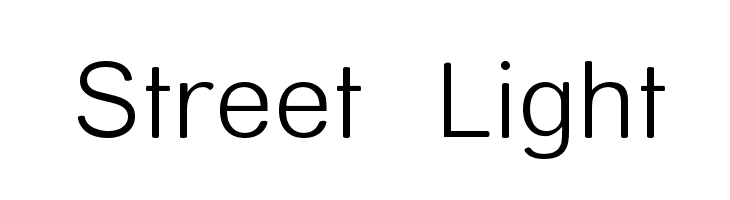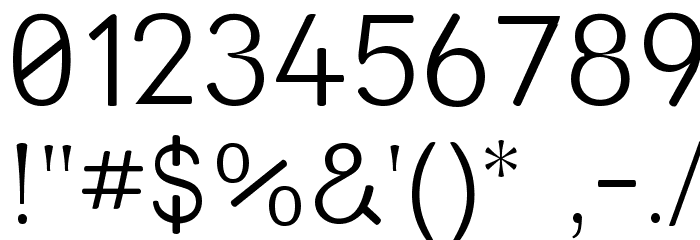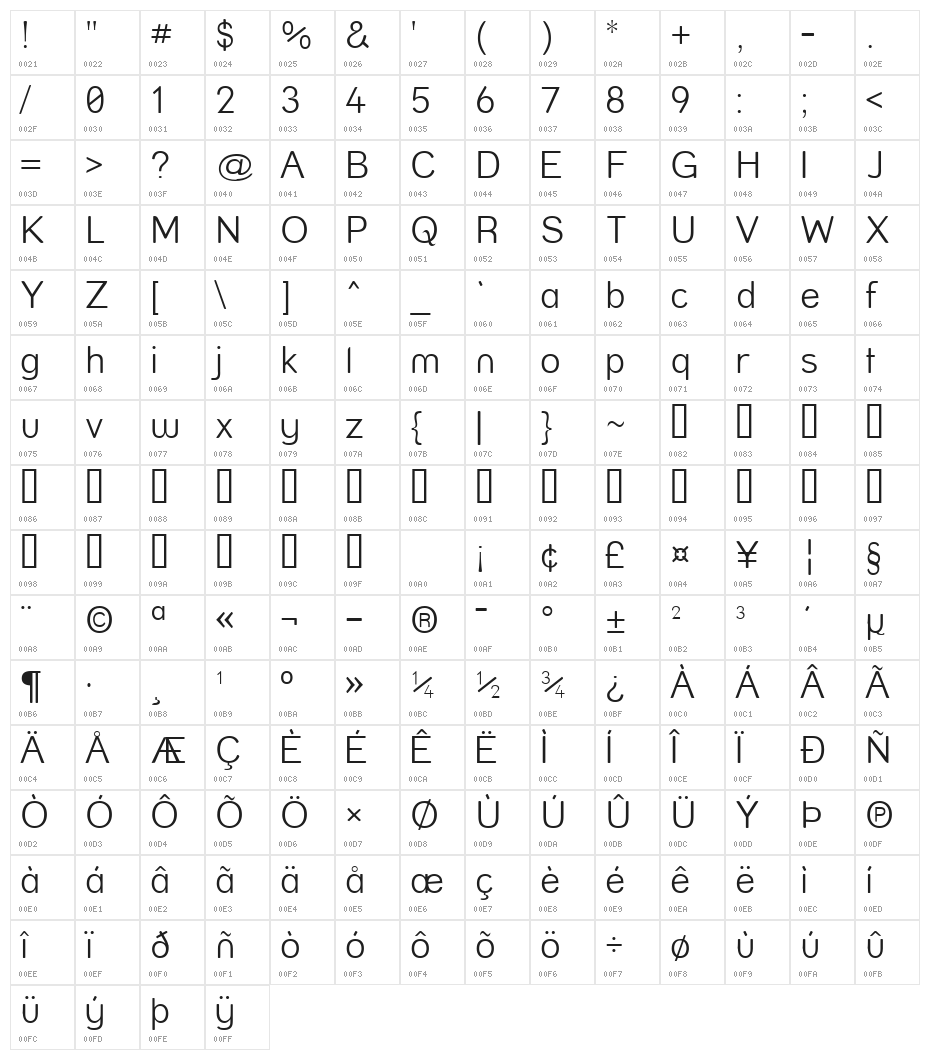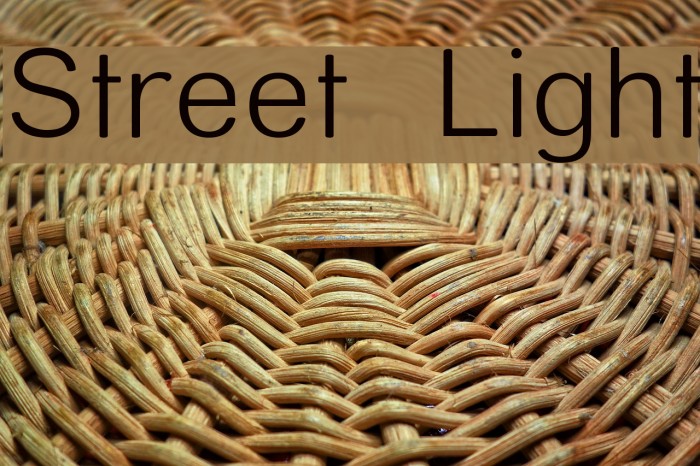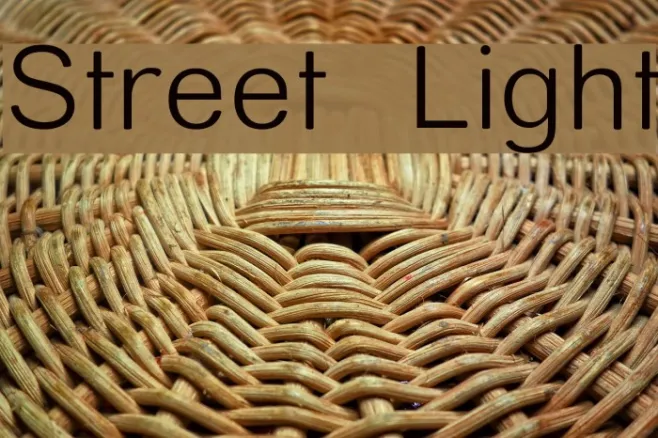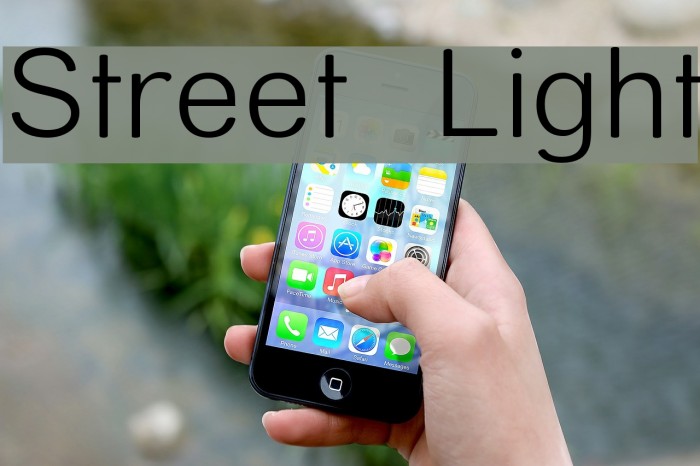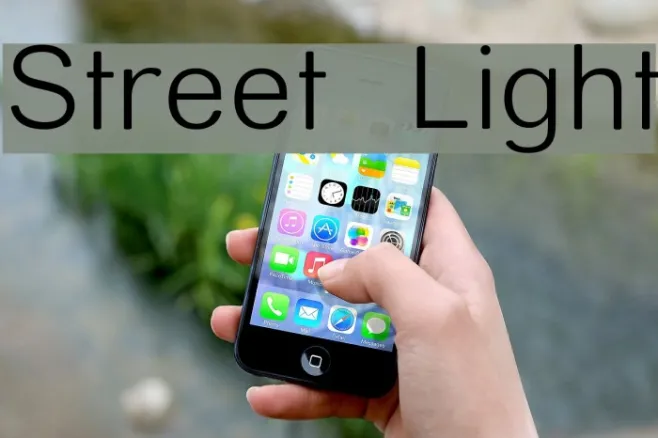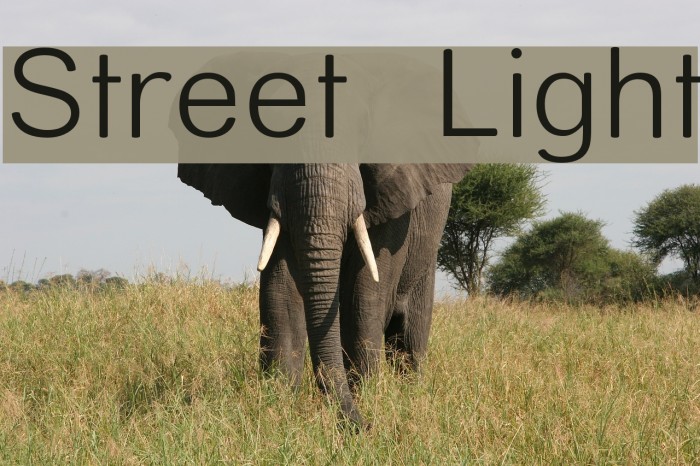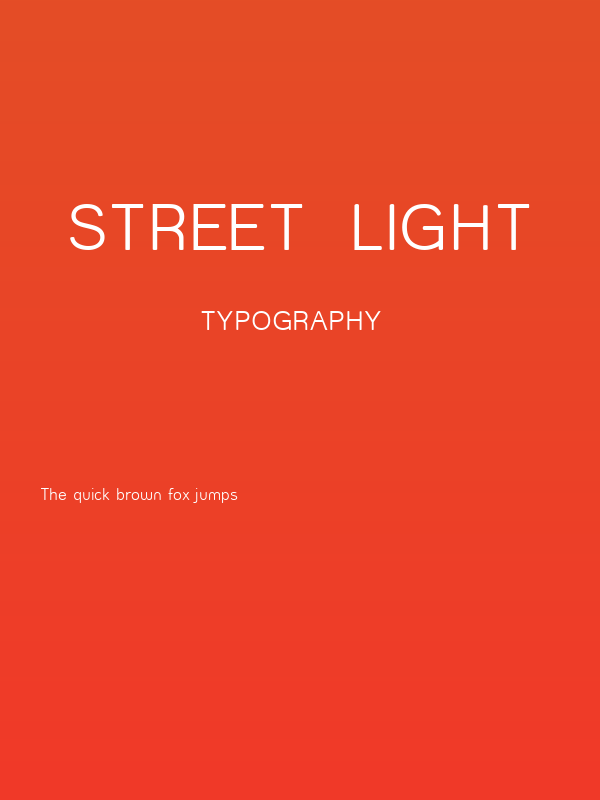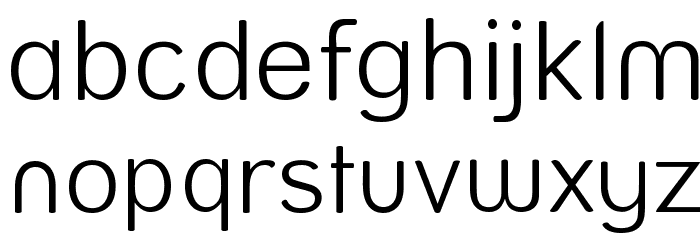
Street Light Font
Street Light Description
This font features a clean and modern sans-serif design with a geometric structure. The characters are well-balanced with a consistent stroke width, giving it a sleek and contemporary appearance. The uppercase letters are slightly taller than the lowercase, providing a clear distinction between the two. The numerals are proportional and align well with the overall style, maintaining readability. Special characters are designed with the same attention to detail, ensuring they integrate seamlessly with the rest of the font. The overall look is minimalistic yet versatile, making it suitable for various design applications.
| Proposed Projects | Ideal for branding, web design, advertising, and editorial layouts due to its clean and versatile style. |